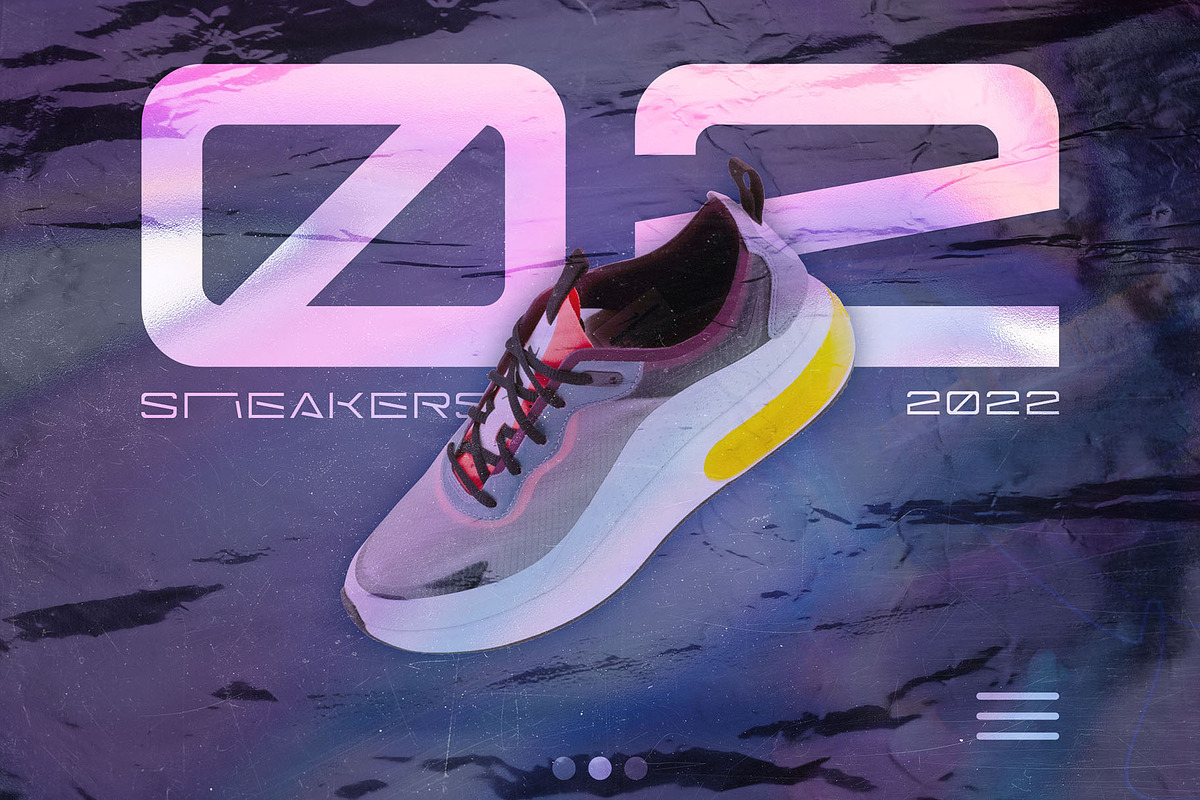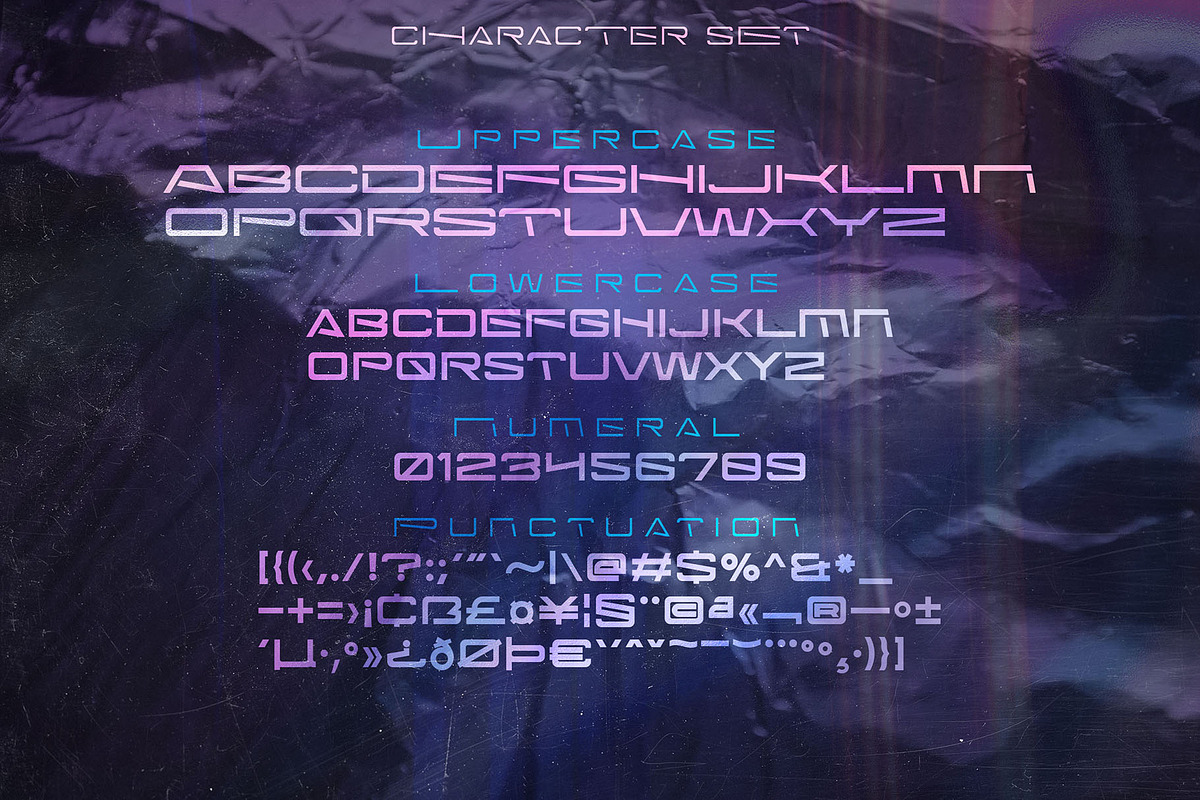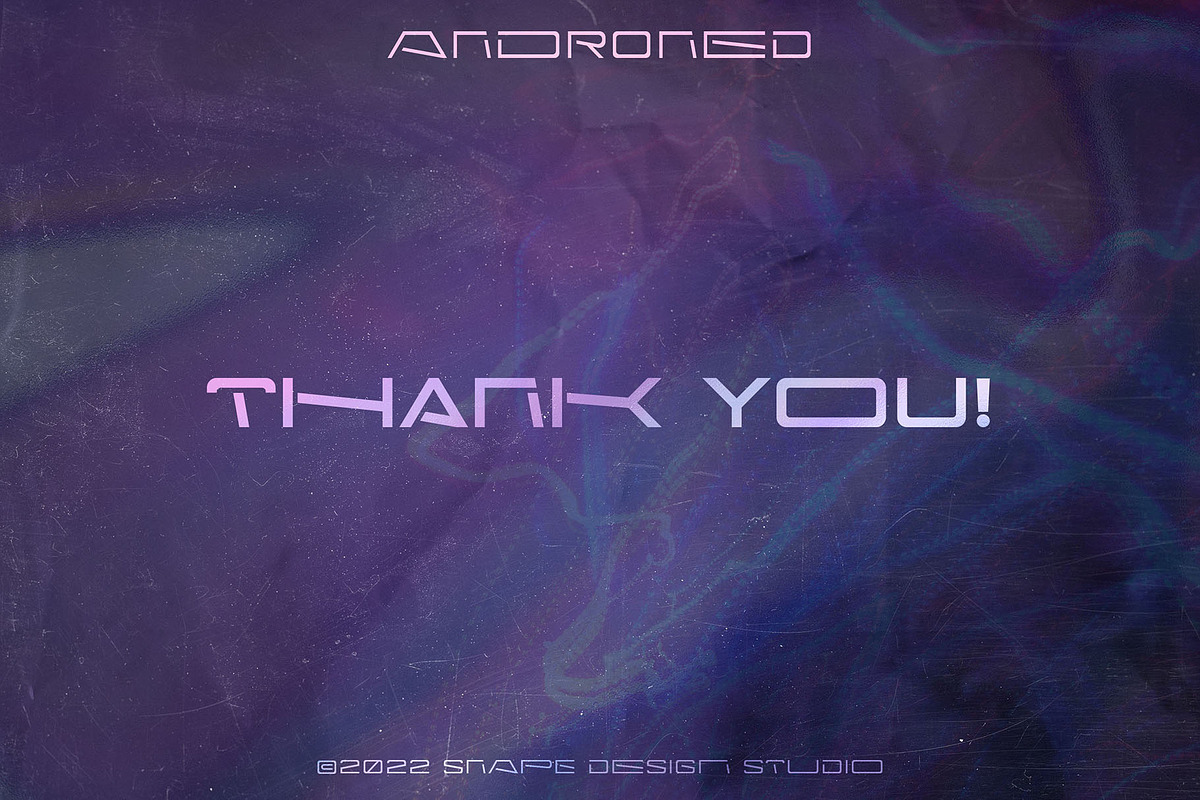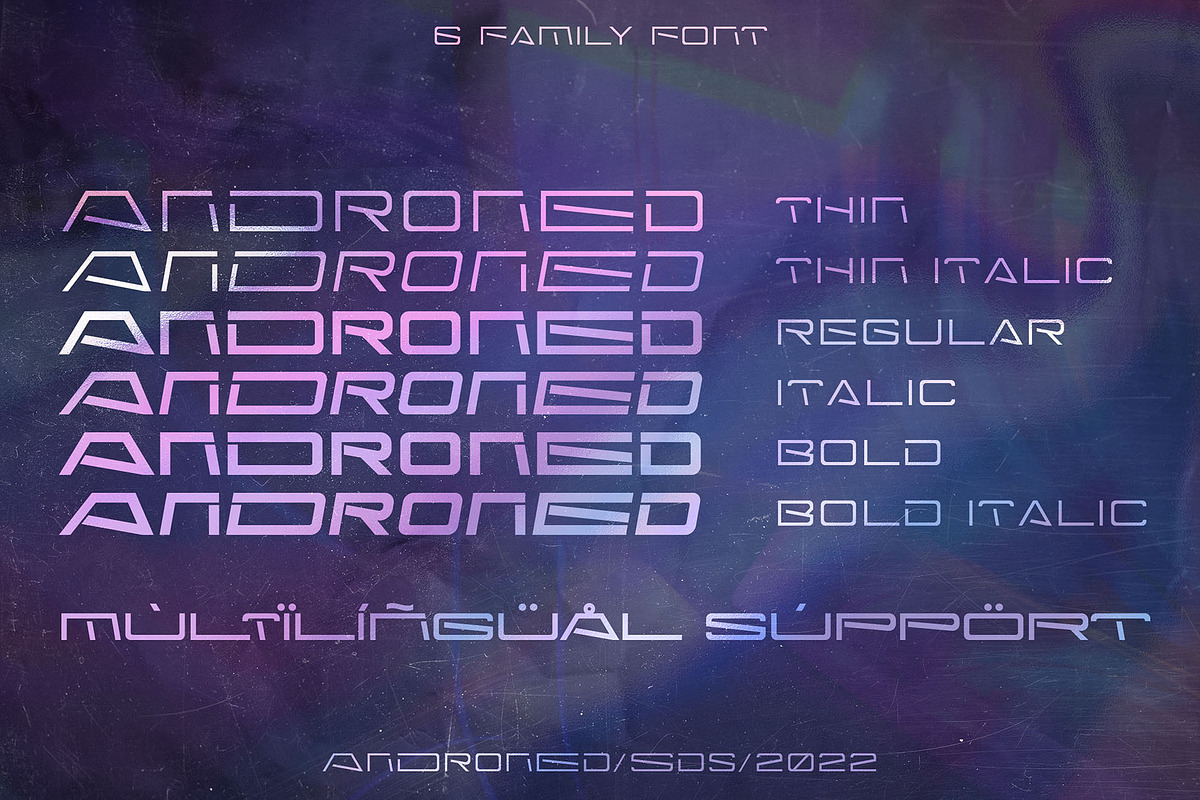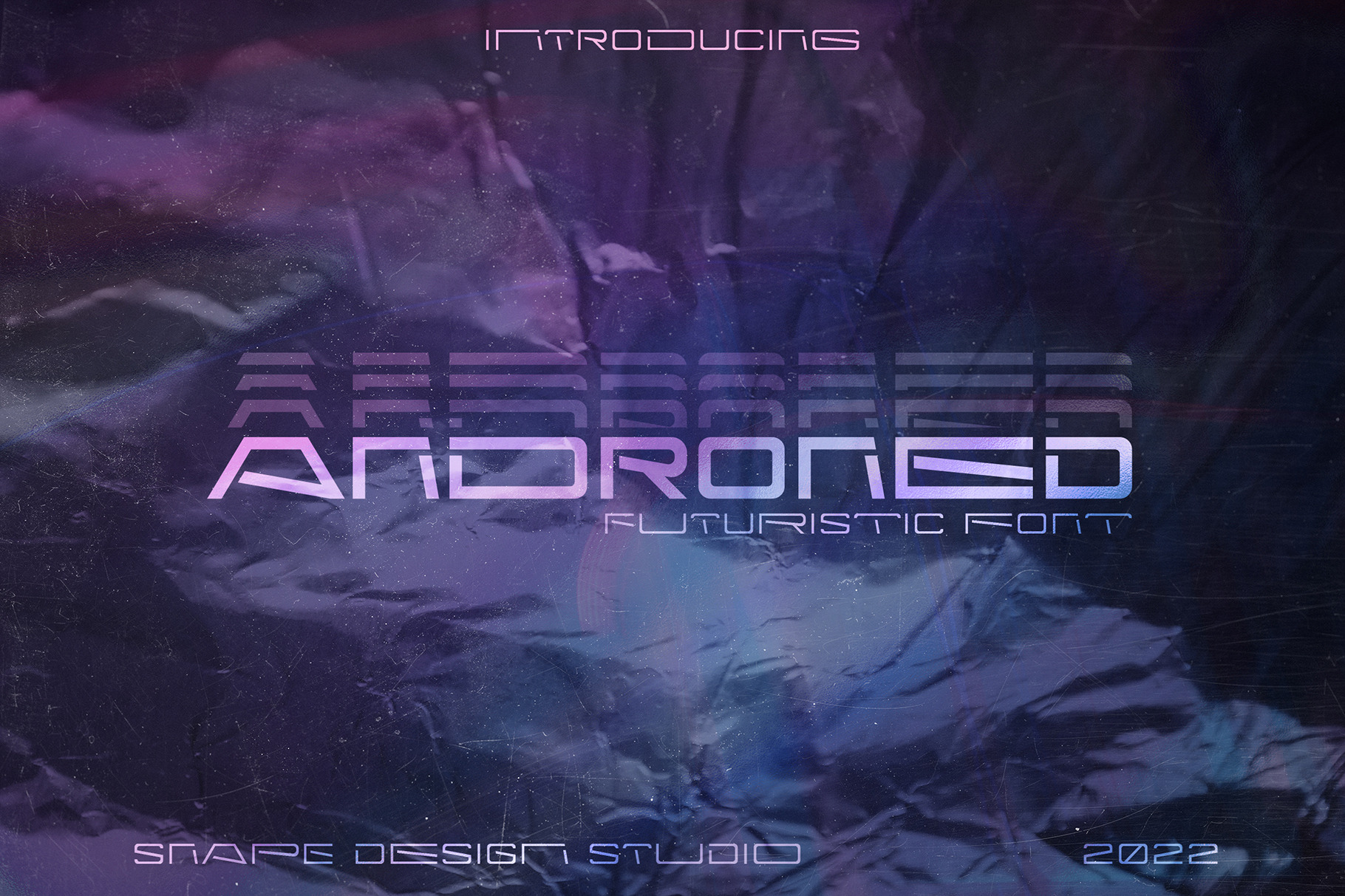
Androned – Futuristic Font
Androned is a modern futuristic font. Androned perfect for technology, digital, space galaxy theme. Also suitable for movie, documenter, film, logo, poster, game, book cover, headlines, title and many more projects. Add this font to your creative ideas and notice how it will make them stand out!